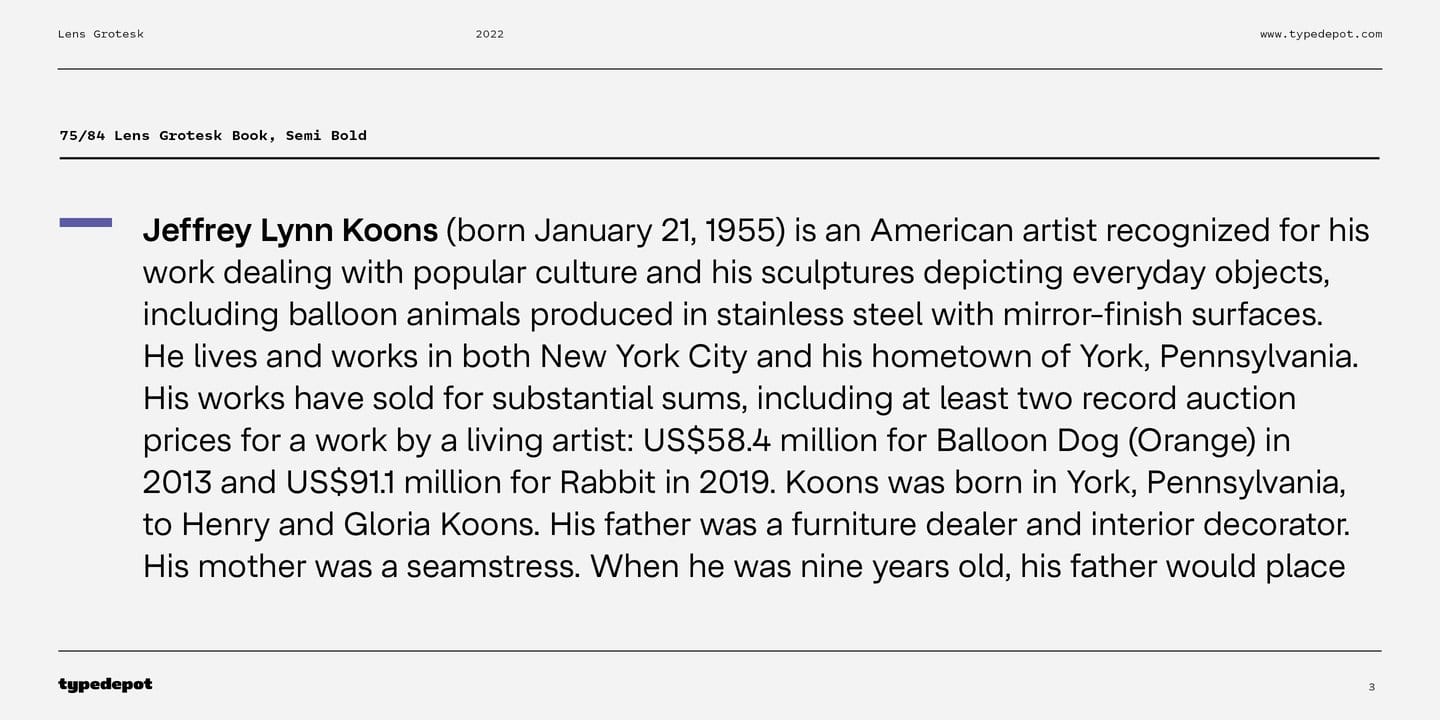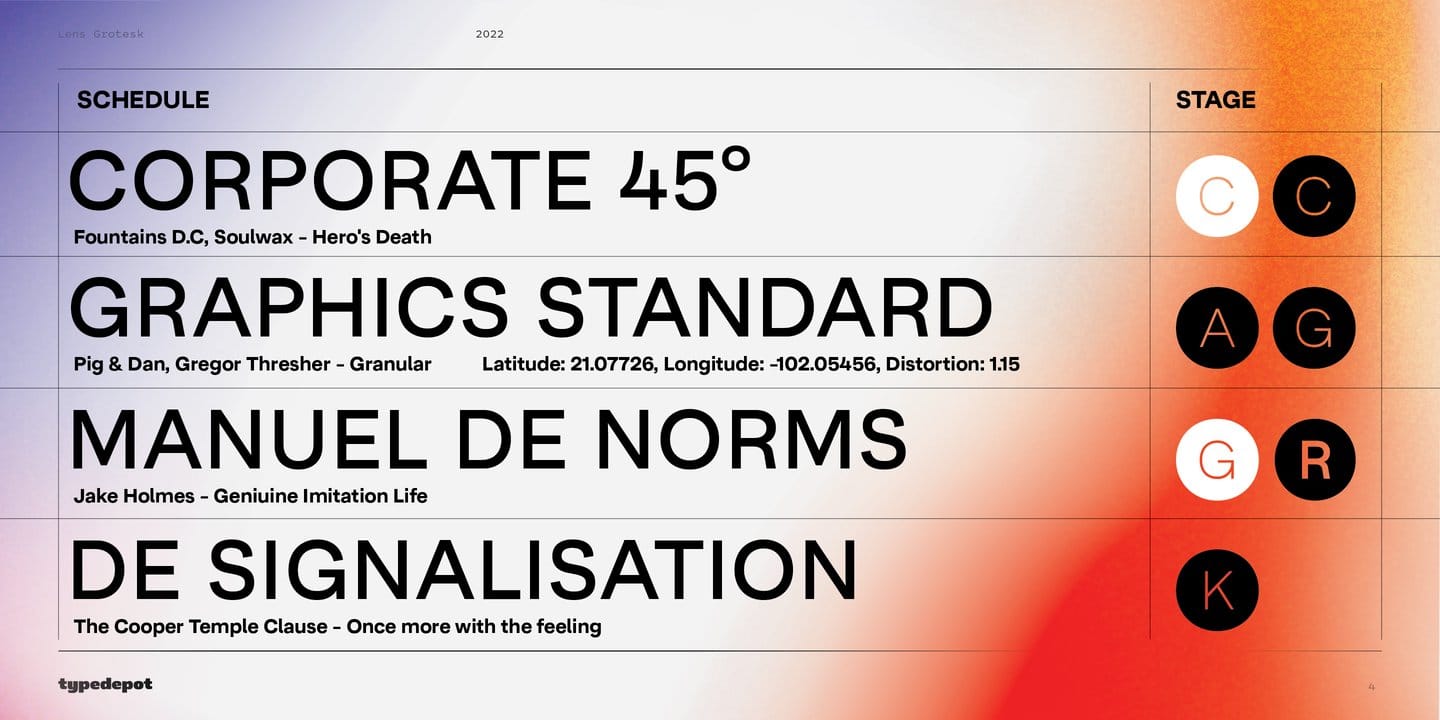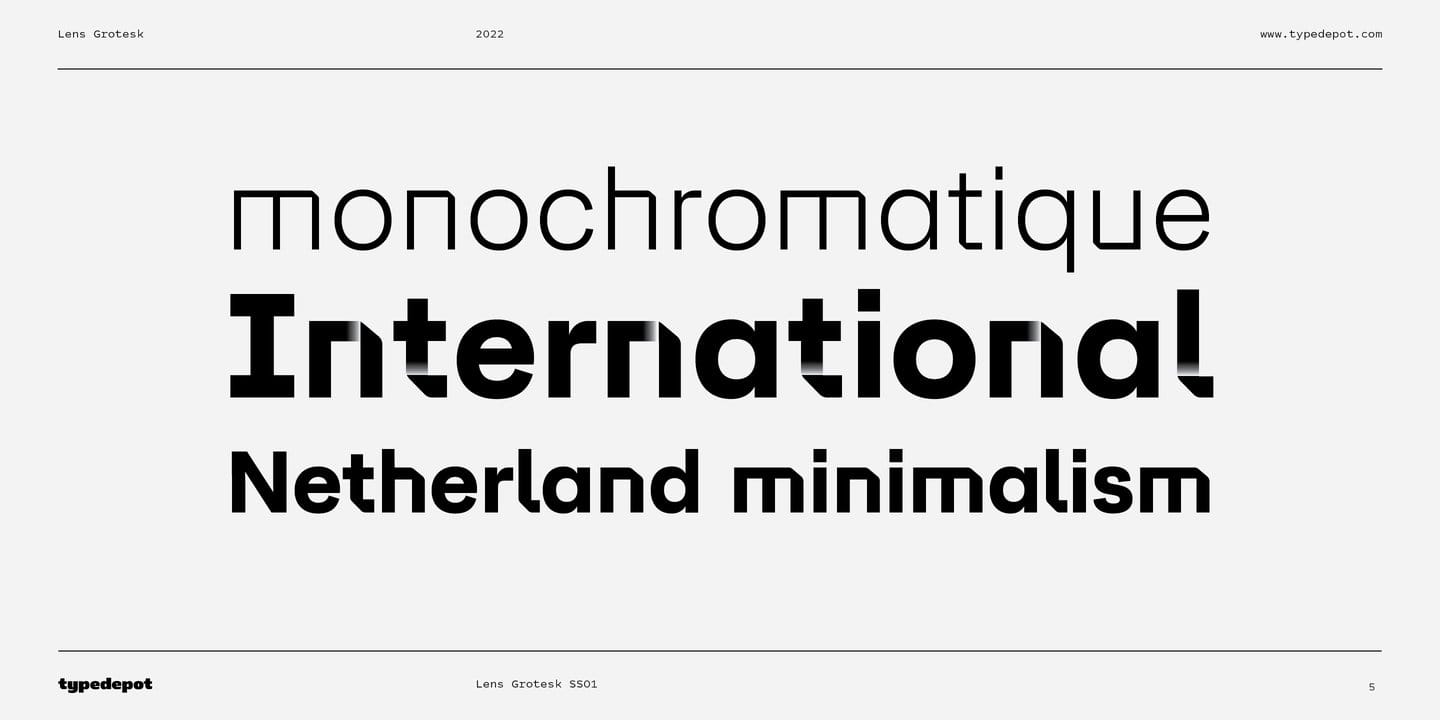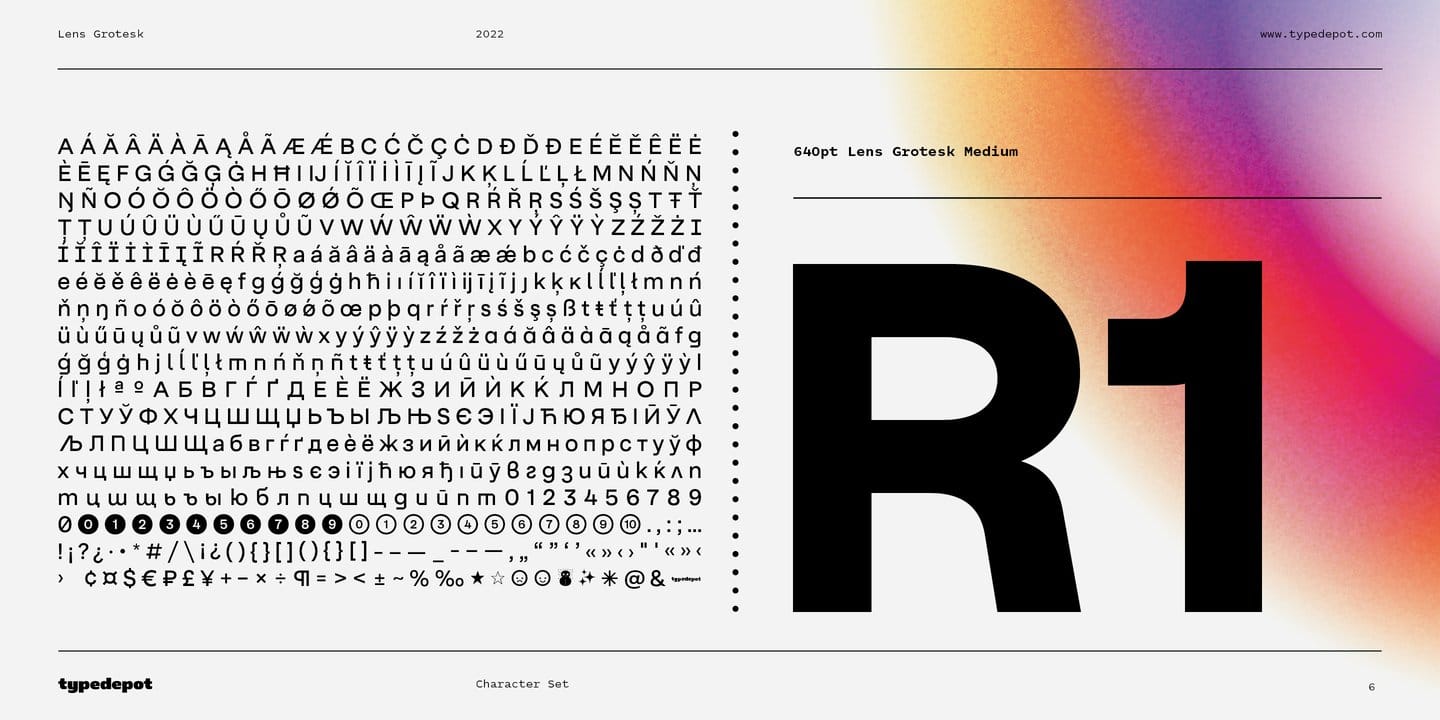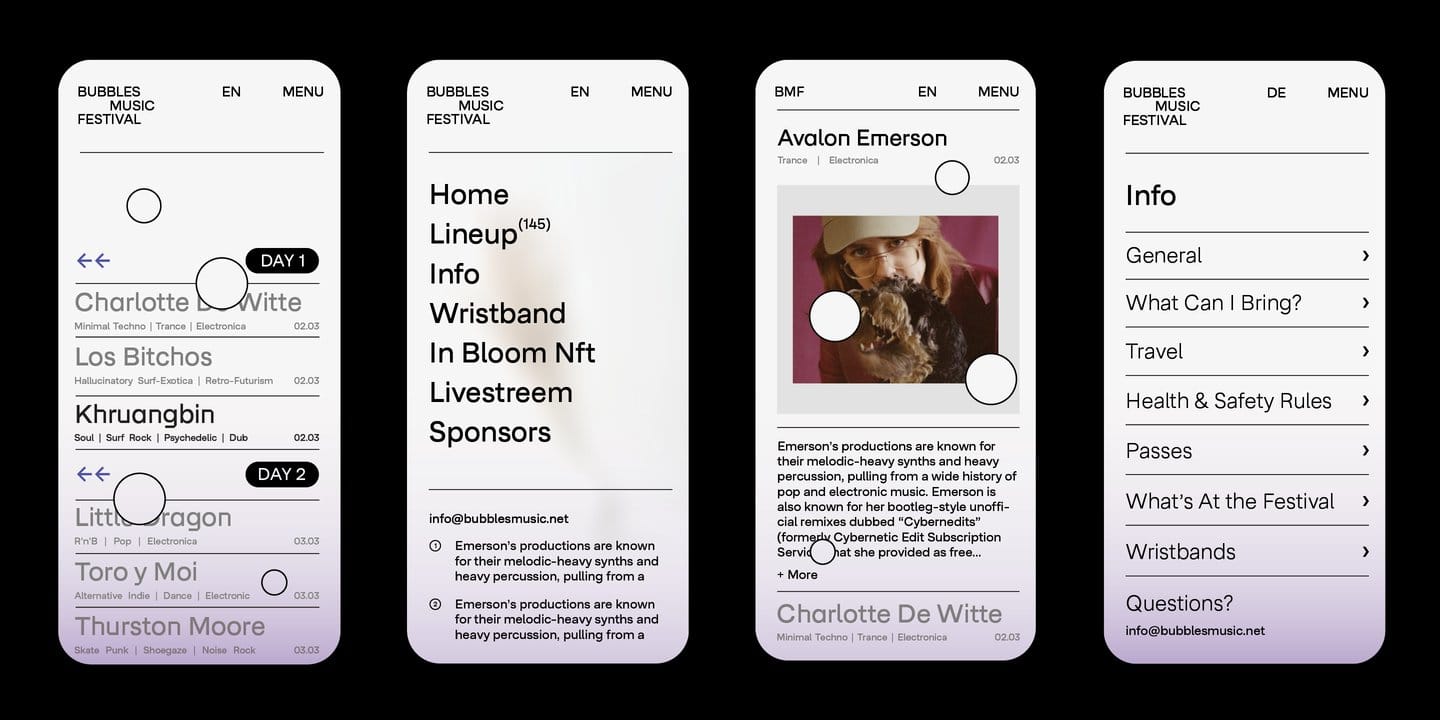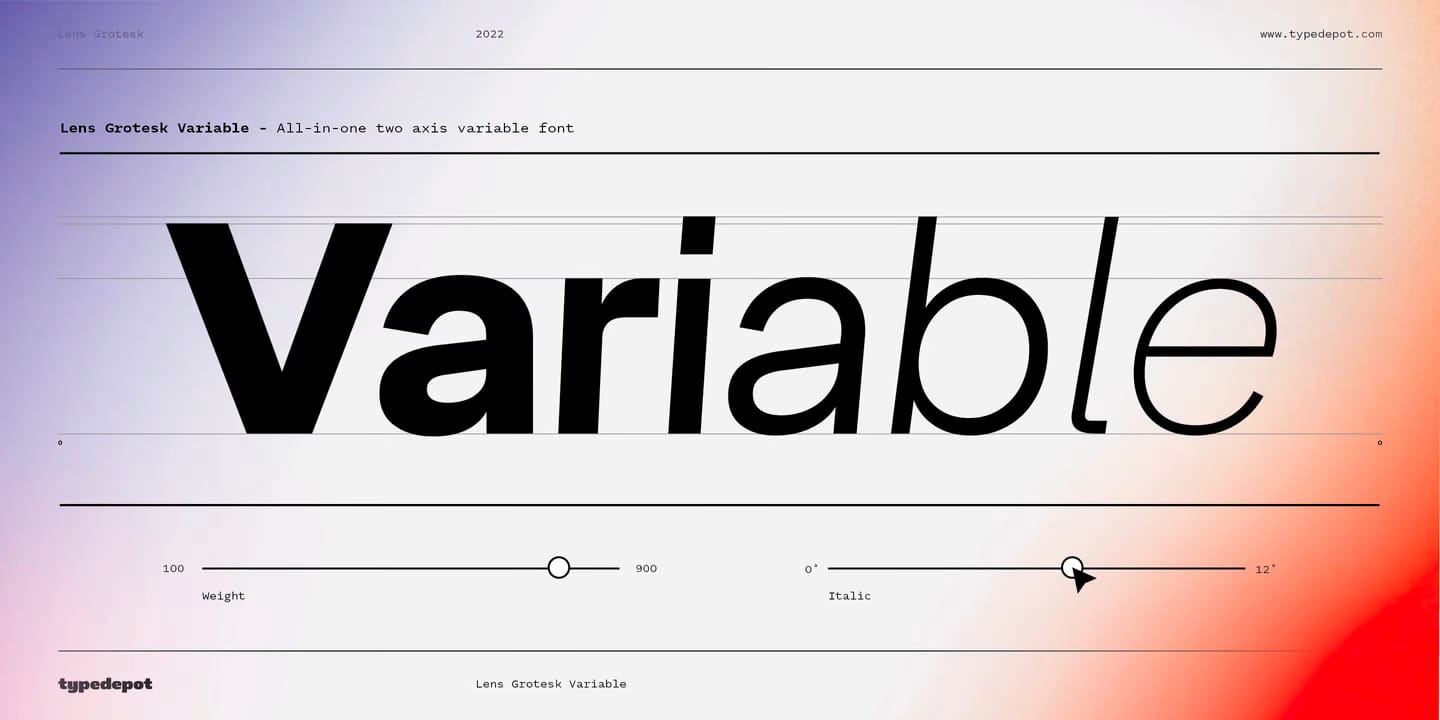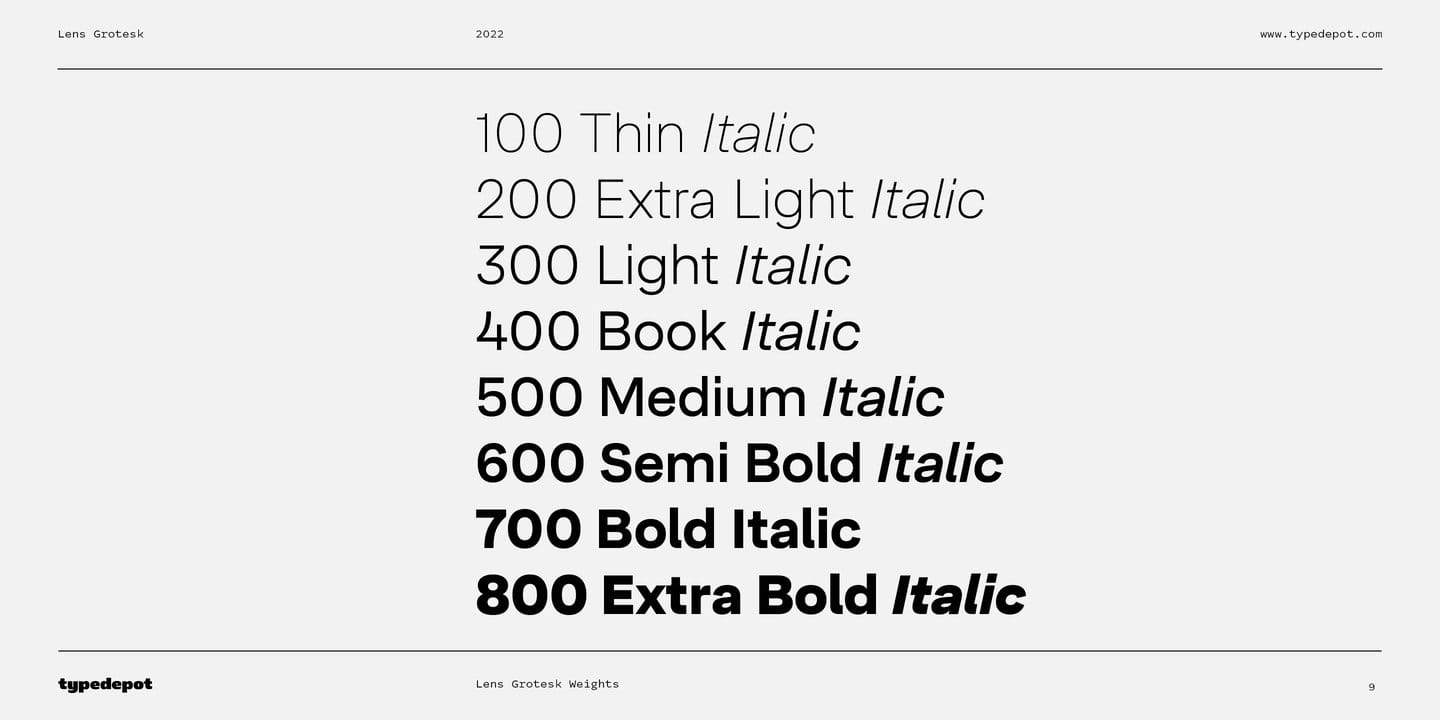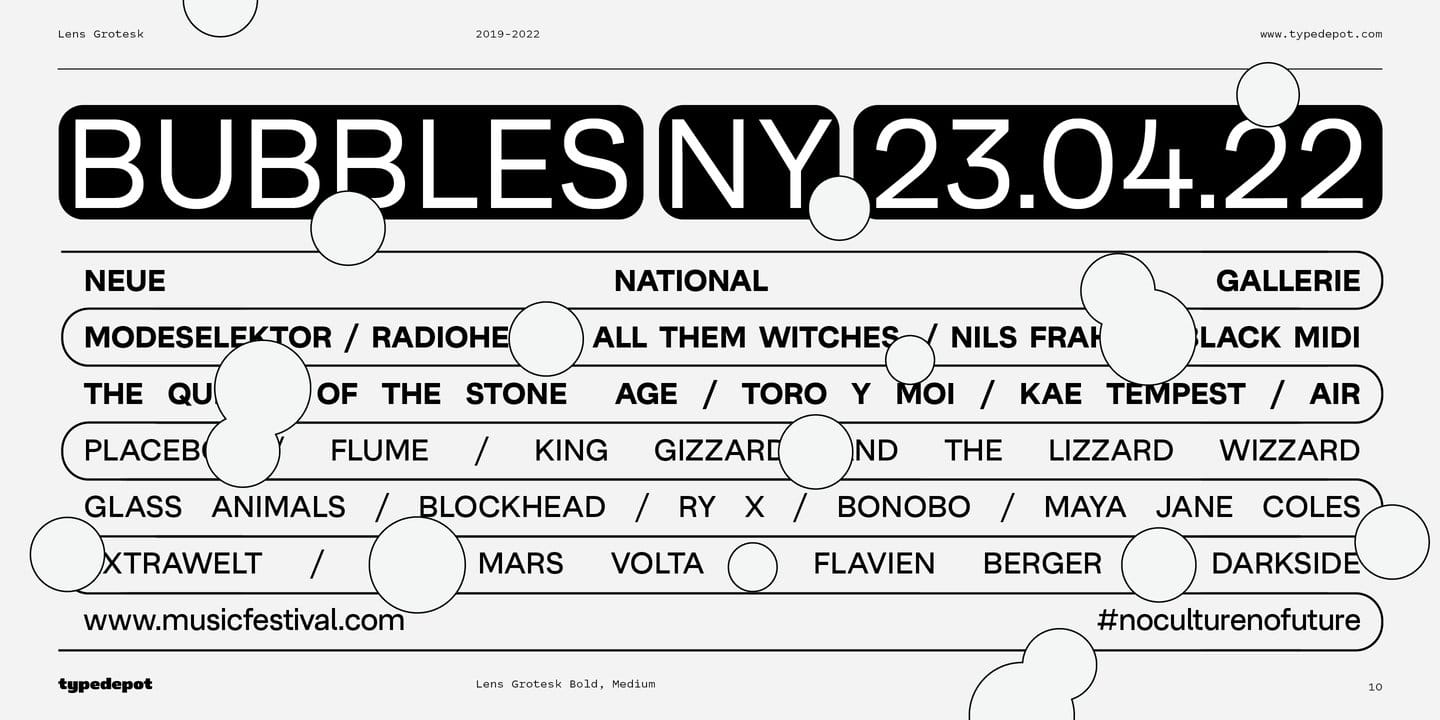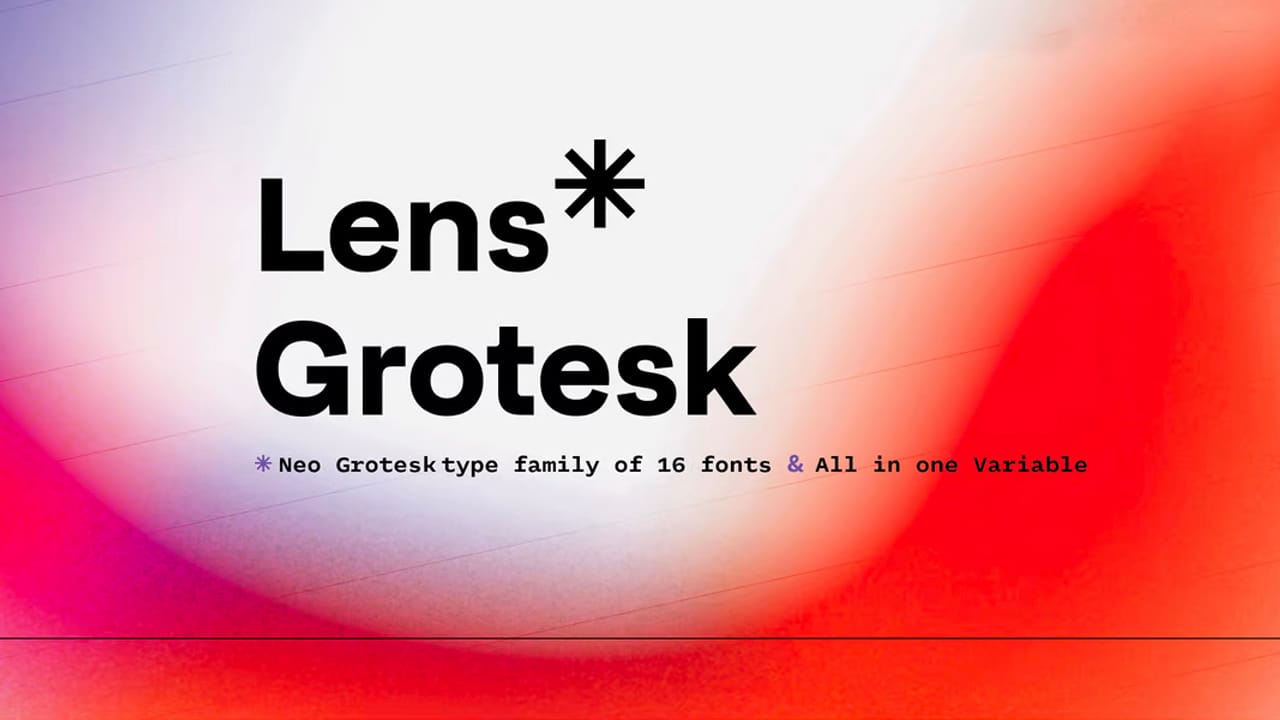
Lens Grotesk Font Family includes 16 modern Neo-grotesque styles inspired by Helvectica and Univers that have been used daily for over 70 years.Lens Grotesk is more modern with Neo-grotesque and a bit of sans-serif Geometry into the mix, thus creating a more modern and contemporary design. Featuring more generous oval proportions and slightly more open terminals, strokes are clearly displayed.Lens Grotesk is packed with a host of OpenType features, stylistic alternatives and of course Cyrillic support. Includes 16 fonts with 8 italic styles to suit all your designs.